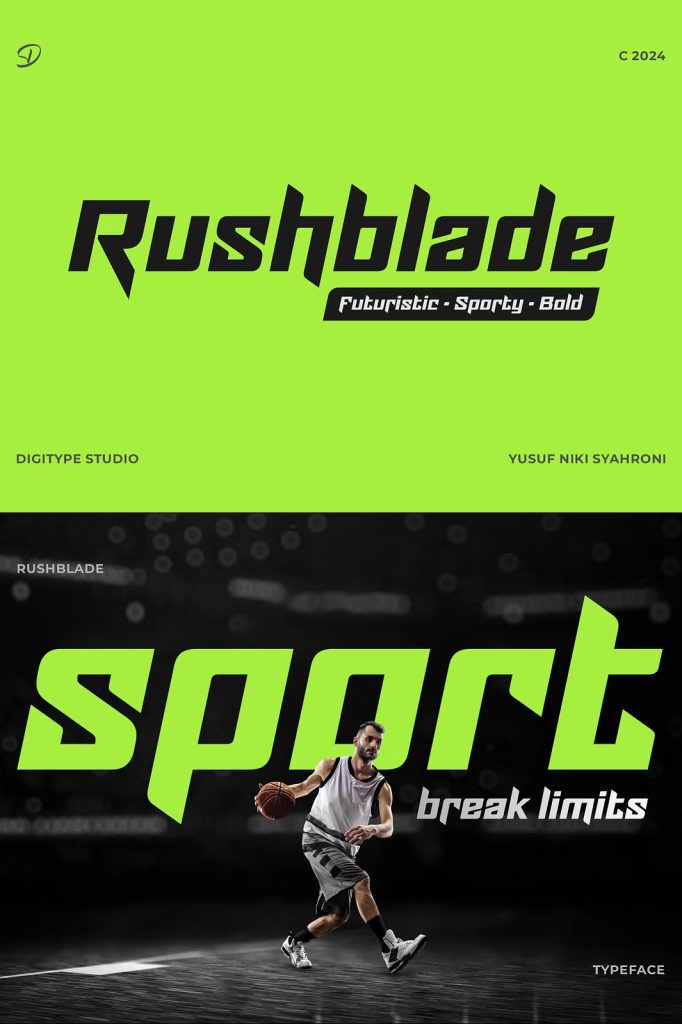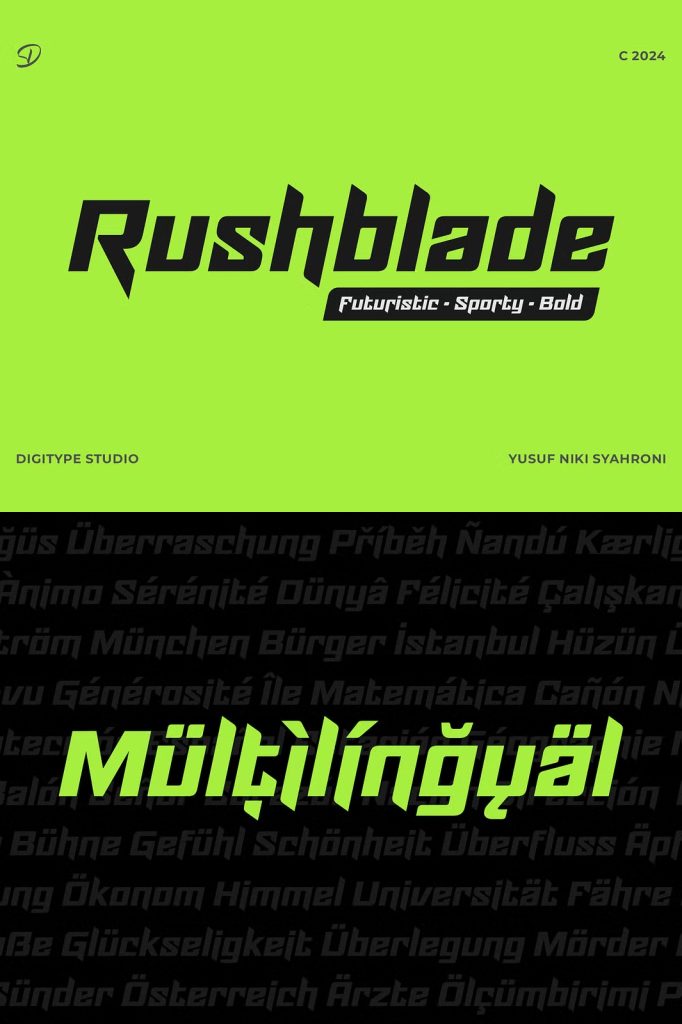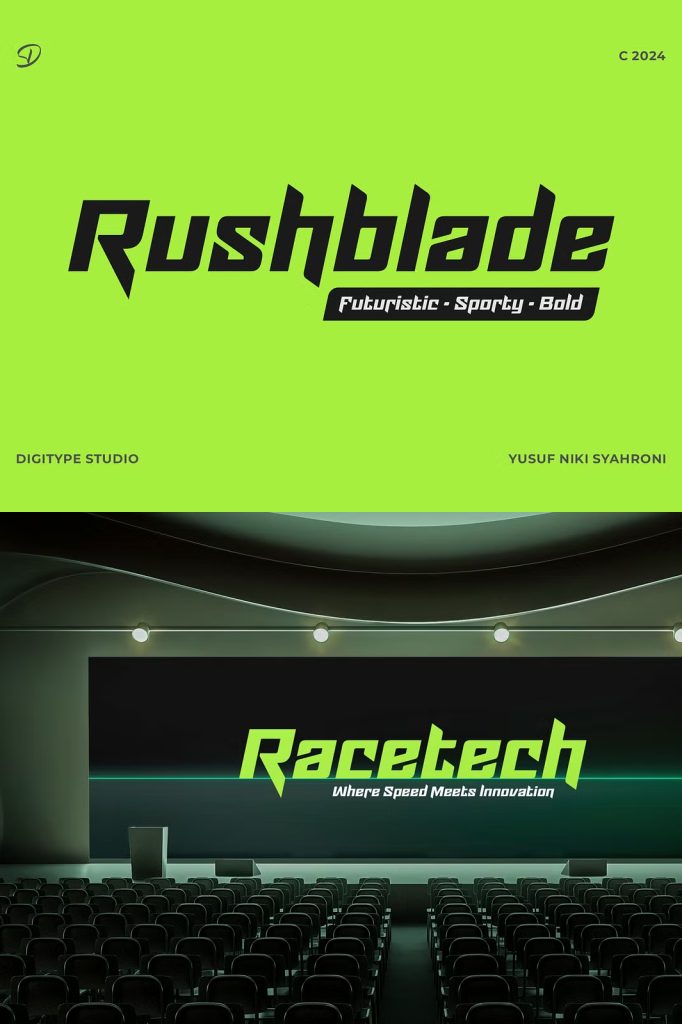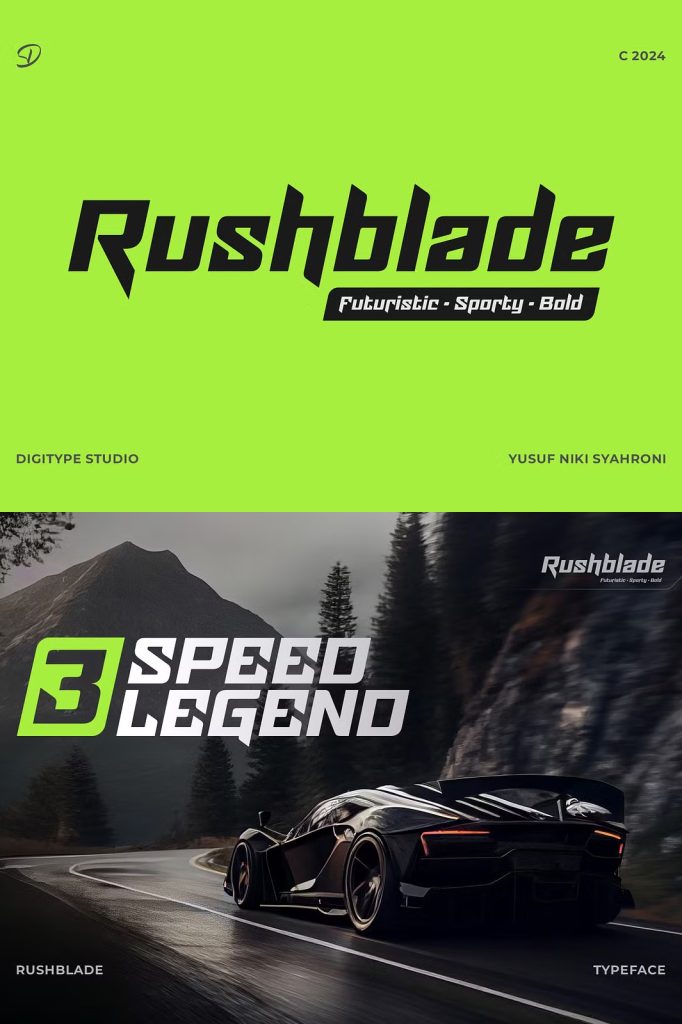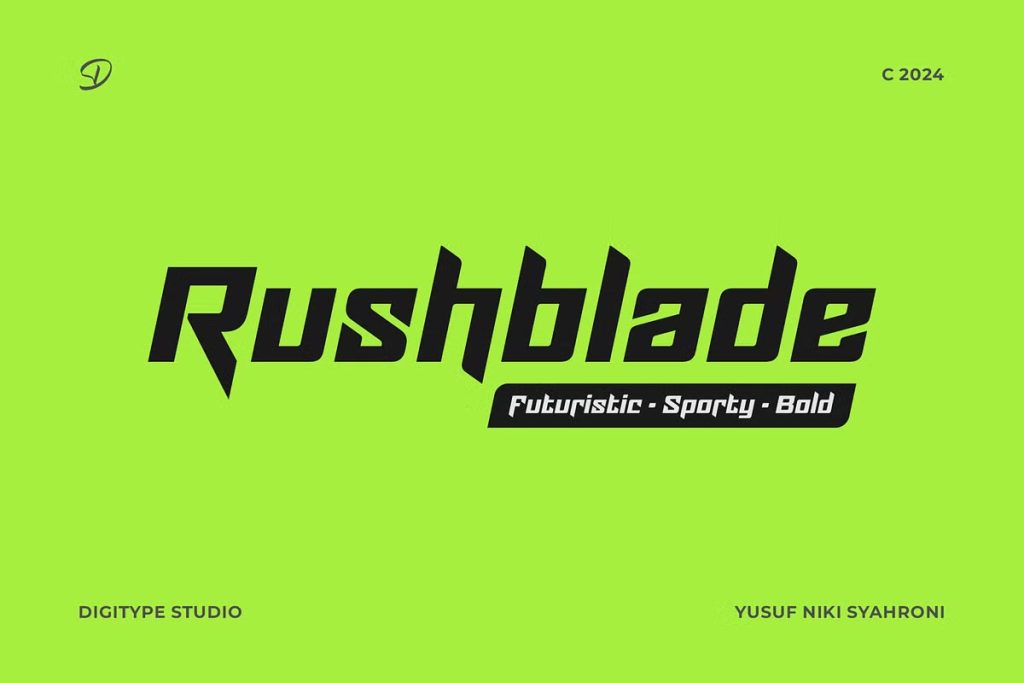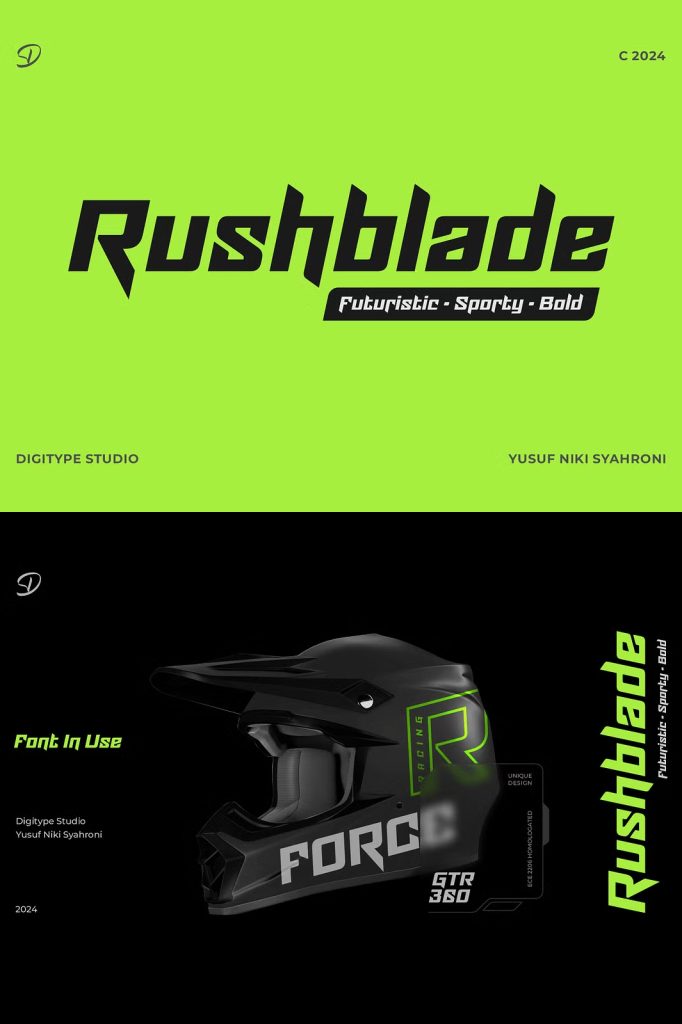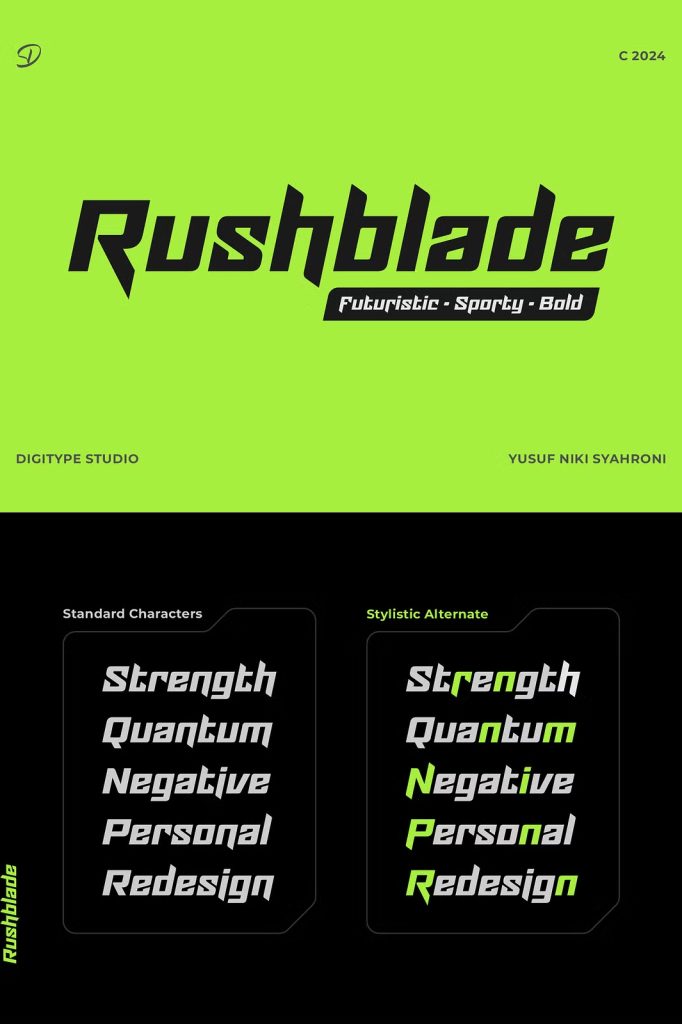
Rushblade Display Typeface: Futuristic Speed and Power in Typography
Rushblade is a futuristic, sporty, and bold display typeface designed to push visual communication into high gear. Built for designers who want their work to feel fast, aggressive, and forward-thinking, Rushblade captures the adrenaline of racing circuits and the intensity of modern gaming culture. Every letterform is engineered to project motion, strength, and precision, making this typeface an ideal choice for designs that must stand out instantly.
Rather than relying on decorative excess, Rushblade communicates energy through structure. Its sharp angles, hard edges, and disciplined geometry create a sense of velocity and control. The font feels as if it is always in motion, even when static, giving designers a powerful tool to express speed and technological confidence.
Inspired by Racing, Gaming, and High-Performance Design
Rushblade draws direct inspiration from the visual language of motorsports, esports, and futuristic interfaces. These worlds share a common demand for clarity at high speed, bold contrast, and unmistakable identity. Rushblade translates those principles into typography that feels competitive and modern.
The letterforms echo the sharp cuts of racing decals, the angular UI elements of video games, and the aggressive styling of performance vehicles. This influence makes Rushblade especially effective in projects where excitement and innovation play a central role.
Sharp Angular Forms That Create Momentum
The defining feature of Rushblade lies in its angular construction. Each character uses sharp edges and directional strokes to guide the viewer’s eye forward. This deliberate geometry creates an impression of motion and urgency, reinforcing the high-speed aesthetic the font is built around.
Despite its aggressive styling, Rushblade maintains clear letter recognition. The strong structure ensures legibility at display sizes, allowing designers to communicate messages quickly and effectively without sacrificing style.
A Bold Display Typeface Built to Command Attention
Rushblade thrives in display applications where typography takes center stage. Its bold weight and confident presence make it impossible to ignore. Whether placed on a dark background or layered over dynamic visuals, the font cuts through visual noise and delivers impact.
This commanding nature makes Rushblade a strong choice for headlines, titles, and branding elements that must establish dominance. It does not fade into the background or act as a supporting element. Instead, it defines the visual tone of the entire design.
- Logos and brand identities
- Headlines and editorial titles
- Gaming and esports graphics
- Racing and automotive branding
- Posters, banners, and promotional displays
Designed for Modern Branding and Visual Storytelling
Rushblade supports modern branding strategies that focus on performance, innovation, and digital culture. It communicates a message of speed, competitiveness, and technical precision. Brands that operate in technology, sports, entertainment, or gaming can use Rushblade to reinforce their forward-looking identity.
The font pairs well with minimal layouts, bold imagery, and dynamic color schemes. Its clean yet aggressive design allows it to integrate seamlessly into contemporary visual systems without overwhelming other design elements.
Consistency, Strength, and Readability
While Rushblade emphasizes bold aesthetics, it does not compromise on consistency. Each glyph follows a unified design logic, ensuring cohesive results across different words and compositions. This consistency helps maintain brand recognition when the font is used repeatedly across platforms.
The strong contrast and structured shapes also support readability at larger sizes. Designers can confidently use Rushblade in logos and titles where clarity remains essential.
A Typeface That Moves Your Design Forward
Rushblade is more than a futuristic display font; it is a visual statement of speed and ambition. It empowers designers to communicate energy and innovation through typography alone. By combining sharp angles, bold structure, and racing-inspired aesthetics, Rushblade transforms text into a dynamic visual experience.
For projects that demand a cutting-edge look and a sense of unstoppable momentum, Rushblade delivers a typeface that feels powerful, modern, and unmistakably fast. It invites designers to push boundaries, embrace motion, and create visuals that leave a lasting impression.